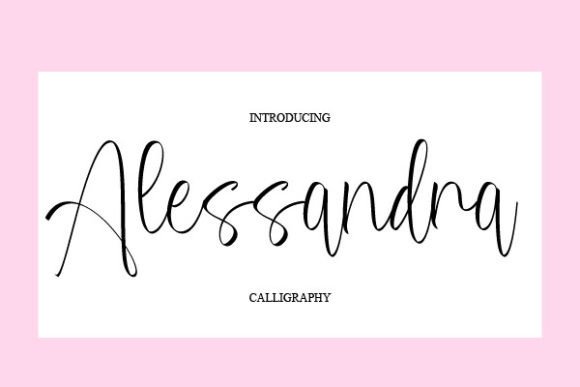
The Elegance of Alessandra: A Timeless Calligraphy Font
I’ll never forget the time I was working on a wedding invitation project, and my client asked for a font that exuded elegance and sophistication. I scoured the internet, tried out countless fonts, but nothing seemed quite right. That was until I stumbled upon Alessandra, a beautiful calligraphy font that added a touch of refined beauty to the invitation. In this article, I’ll share my experience with Alessandra, its features, and how to make the most of this stunning font.
An Honest Review of Alessandra
So, what makes Alessandra special? Here are some things I love about this font:
- ✨ Flowing strokes and stylish curves: Alessandra’s fluid lines and curves give it a timeless feel that’s perfect for projects that require a touch of elegance.
- ✅ Perfect for invitations and cards: Whether it’s a wedding invitation, a birthday card, or a formal announcement, Alessandra adds a touch of sophistication that’s hard to match.
- 💫 Classic charm: This font has a classic, refined beauty that’s perfect for designers who want to add a touch of luxury to their projects.
Of course, no font is perfect, and Alessandra has a few quirks:
- 🤔 Limited use in body text: While Alessandra is stunning in headings and titles, it may not be the best choice for body text due to its cursive nature.
- ⚠️ Requires attention to kerning: As with any script font, kerning can be a bit tricky, so be prepared to adjust the spacing to get the best results.
- Experiment with the OpenType features, such as stylistic alternates and swashes, to add more flair to your text.
The Story Behind Alessandra
Alessandra was designed by a team of typographers who wanted to create a font that embodied the elegance and sophistication of traditional calligraphy. Inspired by the flowing lines and curves of handwritten script, Alessandra was crafted to bring a touch of refined beauty to any project. Whether you’re a designer, crafter, or creative hobbyist, Alessandra is the perfect font to elevate your design.
| Is Alessandra suitable for body text? | While Alessandra is stunning in headings and titles, it may not be the best choice for body text due to its cursive nature. Consider using a more legible font for body text. |